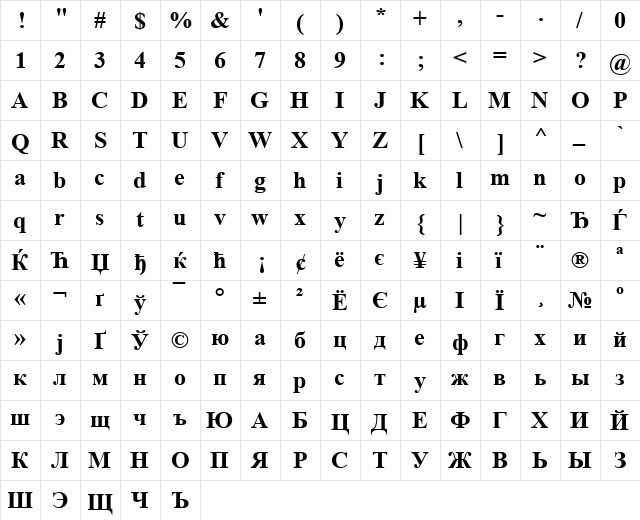
Times New Roman KOI8 Bold
| Designer | Monotype Type Drawing Office - Stanley Morison, Victor Lardent 1932 |
Design Context for Times New Roman KOI8 Typeface
Times New Roman KOI8 offers clean, dependable letterforms without strong stylistic allegiance, making it a practical choice for designers who need flexibility. Its bold stroke weight gives it real presence on the page.